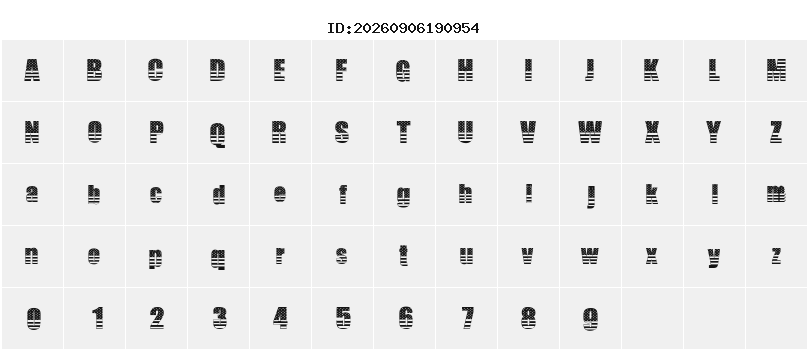
THE AMERICAN.ttf is a modern, elegant sans-serif font designed for ultimate readability and visual harmony. Perfect for branding, headlines, web design, and print materials.